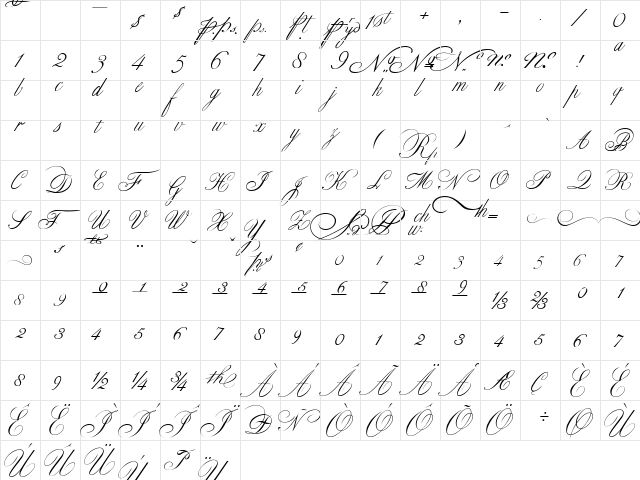
Classic Expert Regular
| Designer | Tony Nash |
Design Context for Classic Expert Typeface
Classic Expert wears its vintage influences proudly, with letterforms that recall mid-century signage, classic packaging, and nostalgia-driven design.
Font Pairing: Combine Classic Expert with a simple slab or neutral sans — period-accurate companions reinforce the vintage feel without competing for attention.
Pro Tip: Use Classic Expert for headlines and pull quotes rather than body copy — its personality is best appreciated in short, focused bursts.